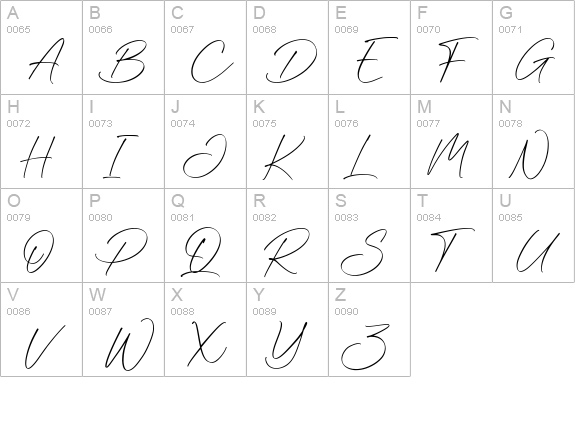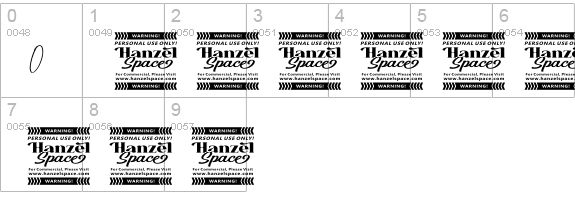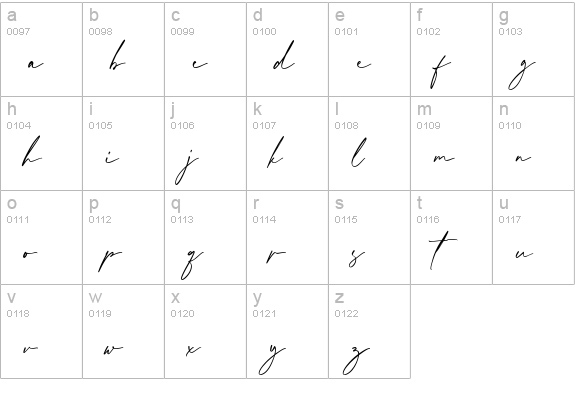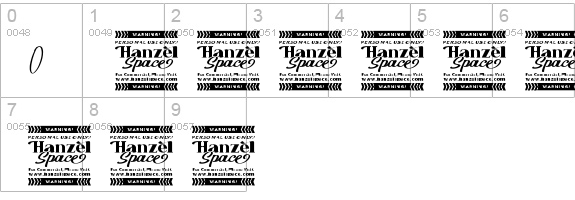
Collin Weather Script Font Details
Collin Weather Script is a free for personal use font in the Script > Handwritten category, designed by hanzel_space. It has been downloaded 48 times and is available for Windows, Mac and Linux.
Collin Weather Script font is a charming and elegant typeface that effortlessly captures the essence of handwritten script with a weathered, vintage flair. Perfect for adding a touch of sophistication to your designs, this versatile font is ideal for various projects such as invitations, logos, branding, and more. Its graceful strokes and flowing curves exude a sense of timeless beauty and class.